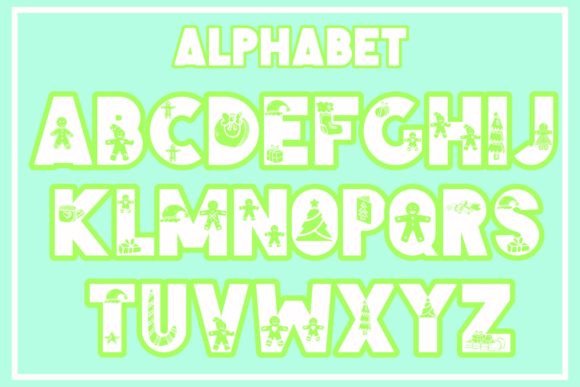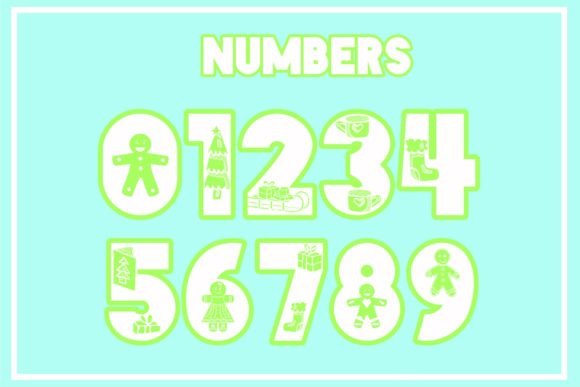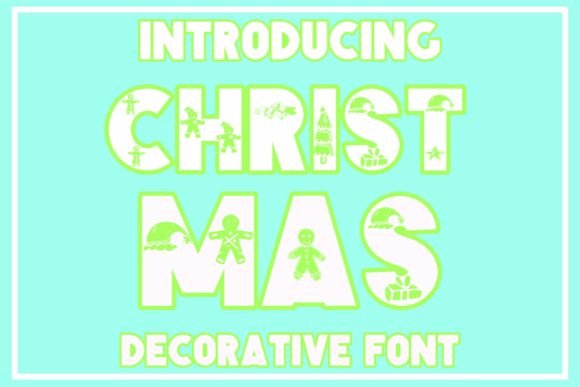
Christmas Font: Add a Festive Touch to Your Holiday Designs
Christmas is just around the corner, and as a designer or crafter, you’re probably looking for ways to add a festive touch to your holiday projects. One of the best ways to do this is by using a Christmas font that captures the spirit of the season. In this article, we’ll introduce you to a cute and festive decorative font that’s perfect for all your Christmas design needs.
Introducing Christmas Font
Christmas Font is a beautiful, hand-crafted font that’s designed to bring a cozy wintery vibe to your designs. Its unique and playful style makes it perfect for a wide range of Christmas projects, from holiday cards and invitations to festive posters and social media graphics. With its bold and cheerful letters, Christmas Font is sure to be a hit with anyone looking to add a touch of holiday cheer to their designs.
Key Features of Christmas Font
- Cute and Festive Design: Christmas Font features a unique and playful design that’s perfect for the holiday season.
- Cozy Wintery Vibe: The font’s bold and cheerful letters evoke a sense of warmth and coziness, perfect for winter and holiday designs.
- High-Quality Vector Graphics: Christmas Font is designed as a high-quality vector graphic, making it perfect for use in a wide range of designs, from small icons to large posters.
- Easily Customizable: The font is easily customizable, allowing you to adjust the size, color, and style to fit your design needs.
Uses for Christmas Font
Christmas Font is a versatile font that can be used in a wide range of holiday designs, including:
- Holiday Cards and Invitations: Add a festive touch to your holiday cards and invitations with Christmas Font.
- Festive Posters and Flyers: Use Christmas Font to create eye-catching posters and flyers for holiday events and promotions.
- Social Media Graphics: Add a holiday touch to your social media graphics, including Facebook posts, Twitter headers, and Instagram stories.
- Christmas Crafts and DIY Projects: Use Christmas Font to add a personal touch to your holiday crafts and DIY projects, such as ornaments, gift tags, and holiday decorations.
Tips for Using Christmas Font
Here are a few tips for using Christmas Font in your designs:
- Pair with Other Festive Fonts: Pair Christmas Font with other festive fonts to create a unique and eye-catching design.
- Use Bright and Bold Colors: Use bright and bold colors to match the festive and cheerful style of Christmas Font.
- Experiment with Different Sizes and Styles: Experiment with different sizes and styles of Christmas Font to find the perfect fit for your design.
Christmas Font is a beautiful and festive decorative font that’s perfect for adding a touch of holiday cheer to your designs. With its cute and playful design, cozy wintery vibe, and high-quality vector graphics, it’s sure to be a hit with designers and crafters alike. Whether you’re creating holiday cards and invitations, festive posters and flyers, or social media graphics, Christmas Font is the perfect choice. So why wait? Download Christmas Font today and start creating your own festive holiday designs!